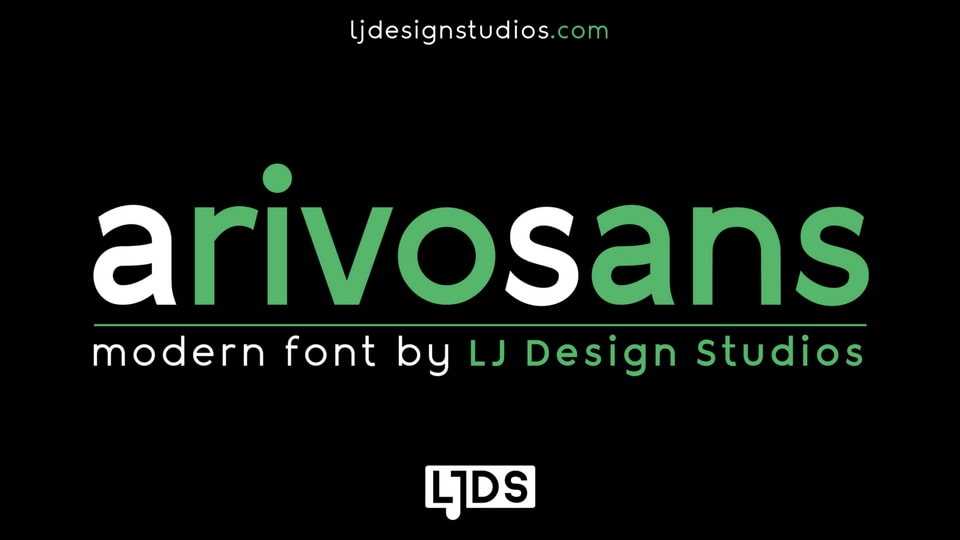
Download Arivo Sans font, a modern geometric typeface that embodies simplicity, practicality, and a touch of understated elegance. This font is designed to be versatile, making it ideal for various design applications, compositions, and formal or clean art
Designer: Luis Jaramillo